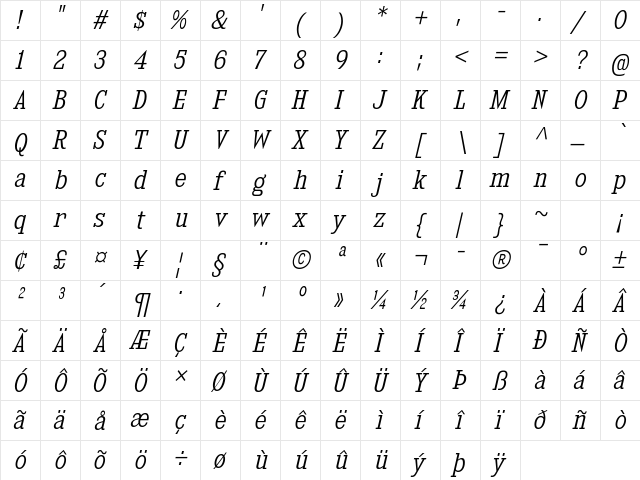
Kingsbridge SemiCondensed Light Italic Font Preview
Design Context for Kingsbridge Typeface
Kingsbridge is a composed and adaptable typeface that performs quietly and consistently across a wide range of design contexts. The dynamic lean of this cut emphasises speed and emphasis in any layout. The delicate stroke weight brings airiness and refinement to layouts. Its narrow stance lets it pack a punch even in space-constrained designs.
Pro Tip: Use Kingsbridge for emphasis, pull quotes, and subheadings where its slanted energy can add rhythm to the layout.